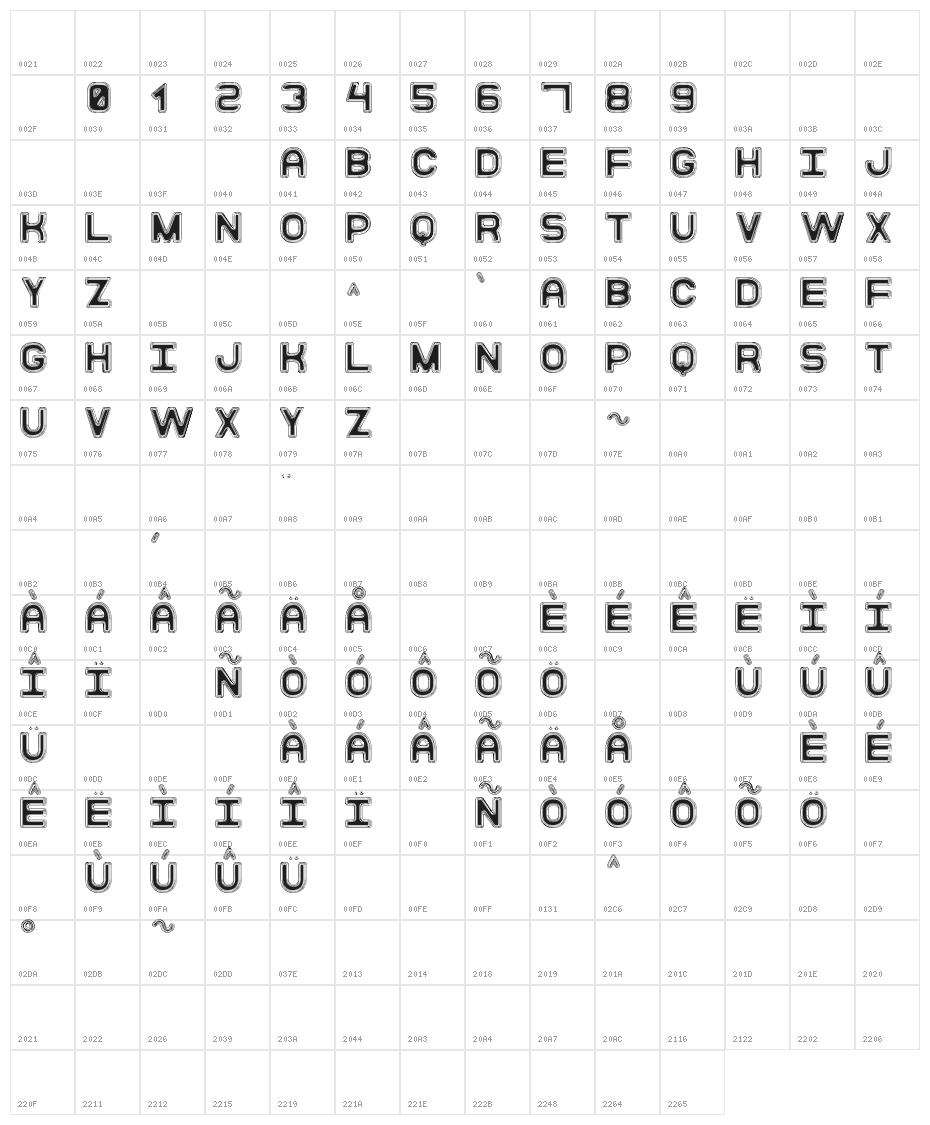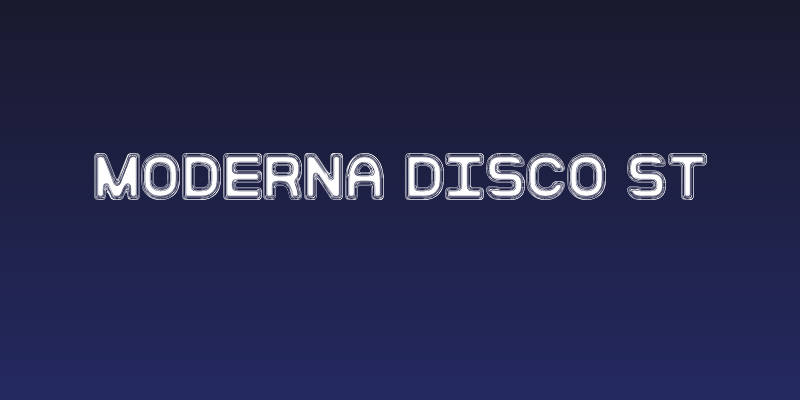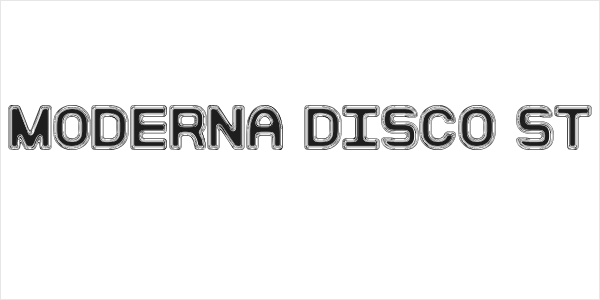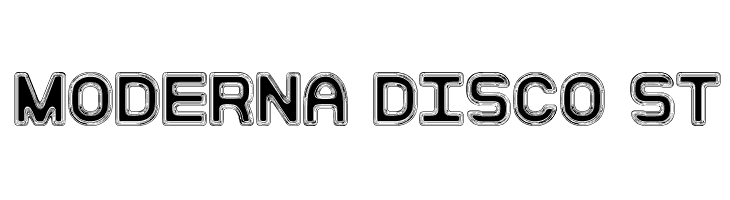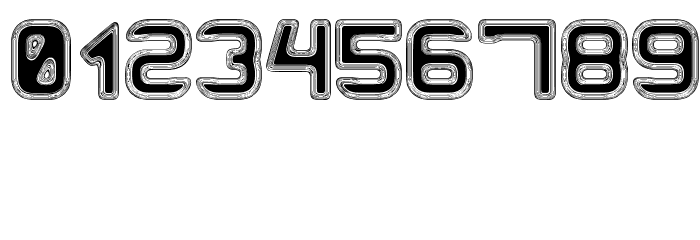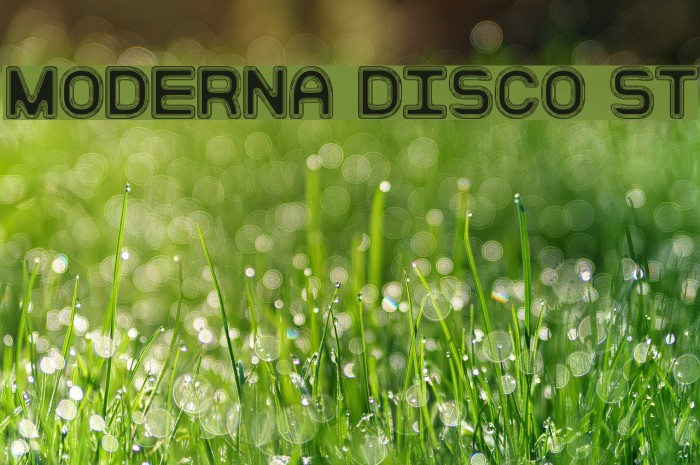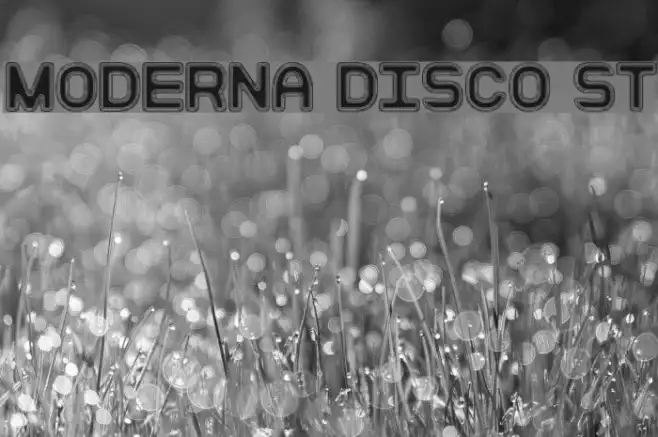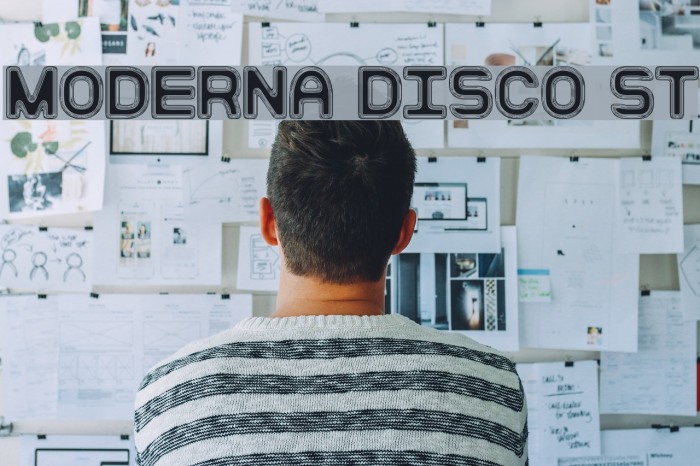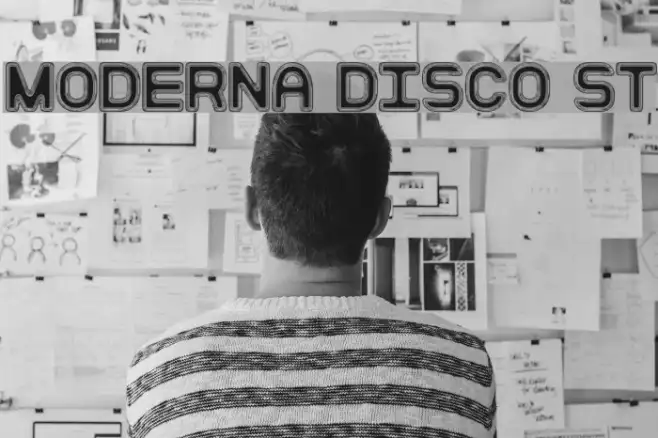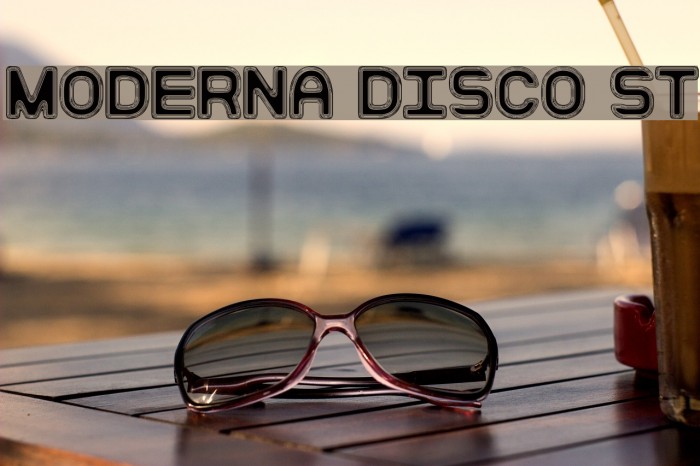
Moderna Disco St Font
Moderna Disco St Description
This font features a bold, modern design with a distinct outline effect that gives it a three-dimensional appearance. The characters are uppercase and numerals, with a consistent thickness throughout, creating a uniform look. The style is reminiscent of retro and disco themes, making it ideal for projects that require a touch of nostalgia with a contemporary twist. The letters are evenly spaced, ensuring readability while maintaining a stylish aesthetic. This font is perfect for eye-catching headlines, posters, and branding materials that need to stand out.
| Proposed Projects | Perfect for retro-themed posters, disco event flyers, branding, and eye-catching headlines. |